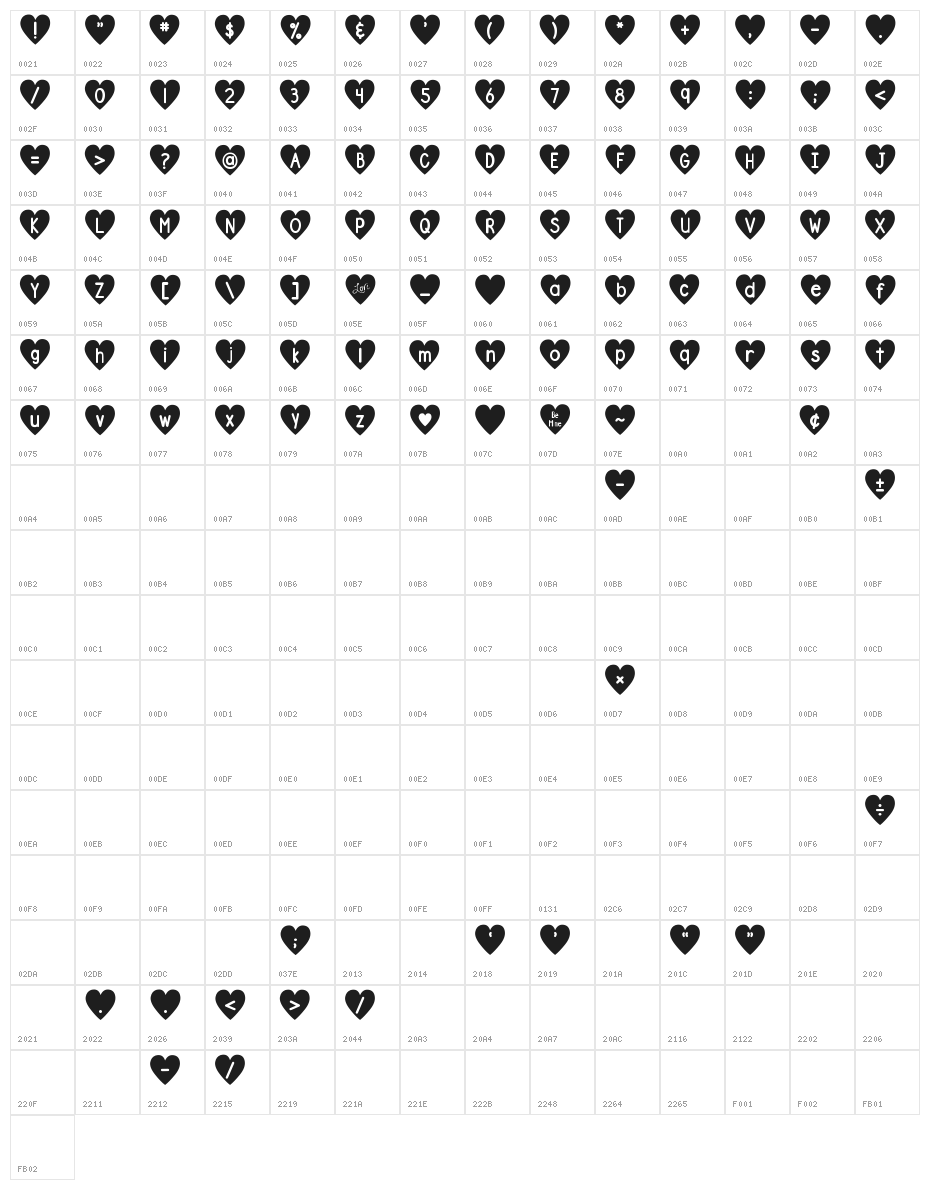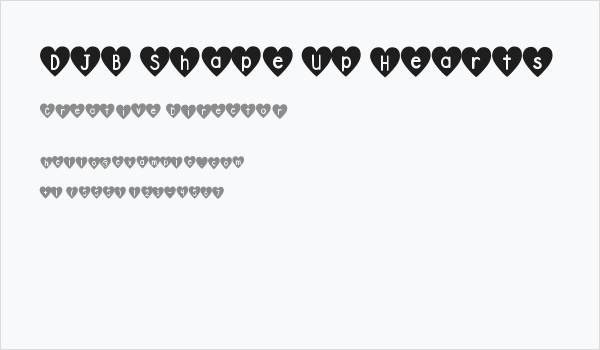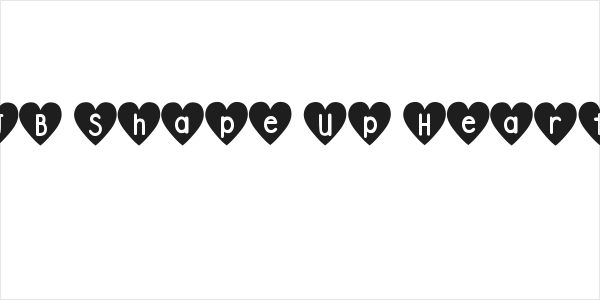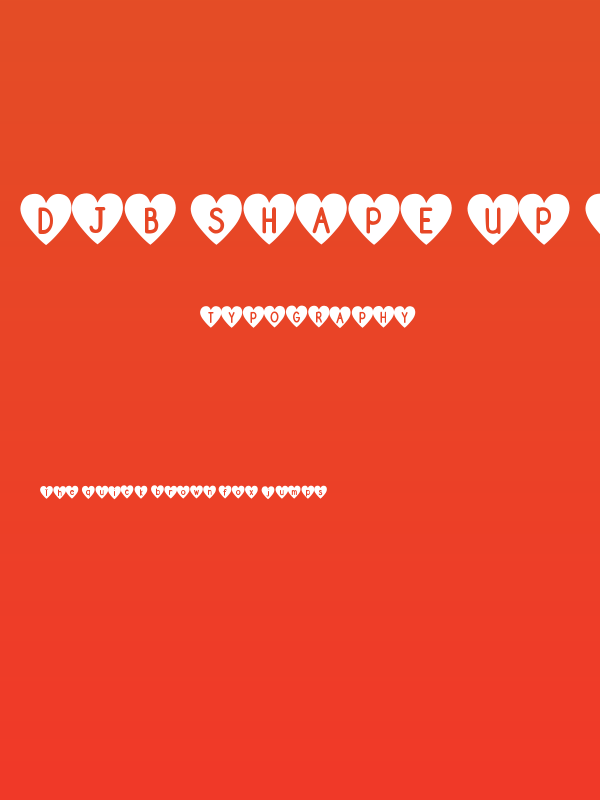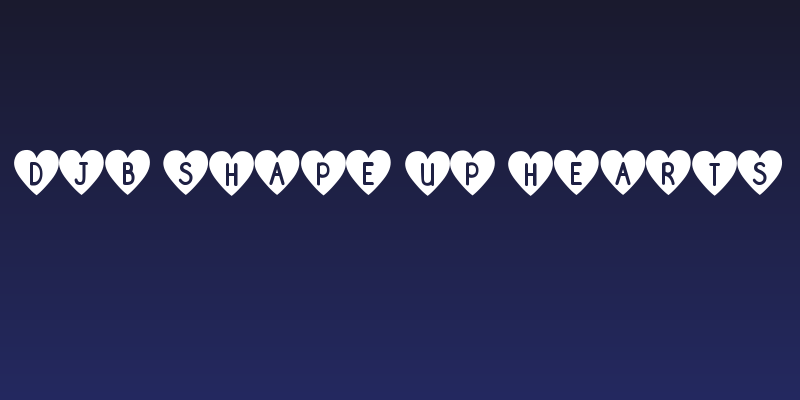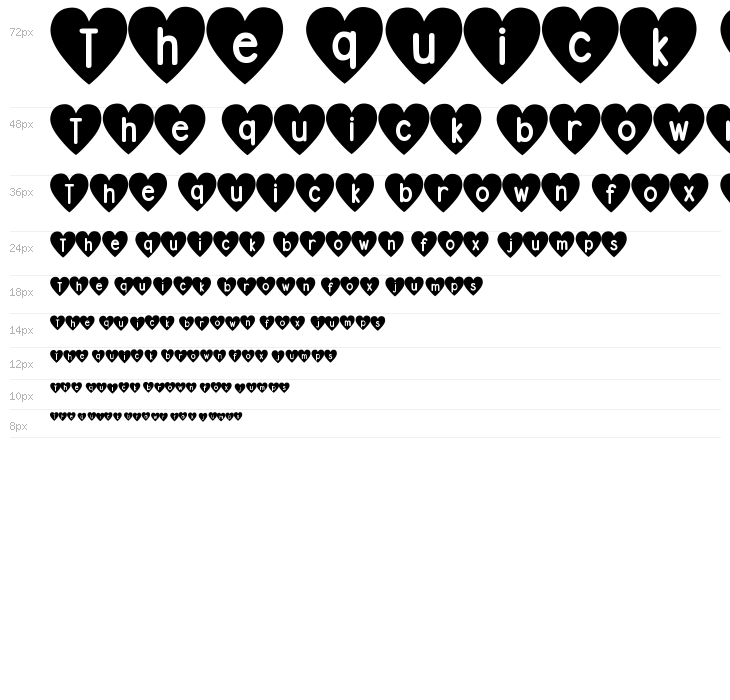
DJB Shape Up Hearts Font
DJB Shape Up Hearts Description
This playful and decorative font features characters enclosed within heart shapes, creating a whimsical and charming appearance. Each letter and number is centered within a bold, black heart, making it ideal for projects that require a touch of romance or fun. The font maintains a consistent style across uppercase, lowercase, numbers, and special characters, ensuring uniformity in design. Its unique presentation makes it stand out, perfect for creative and lighthearted applications.